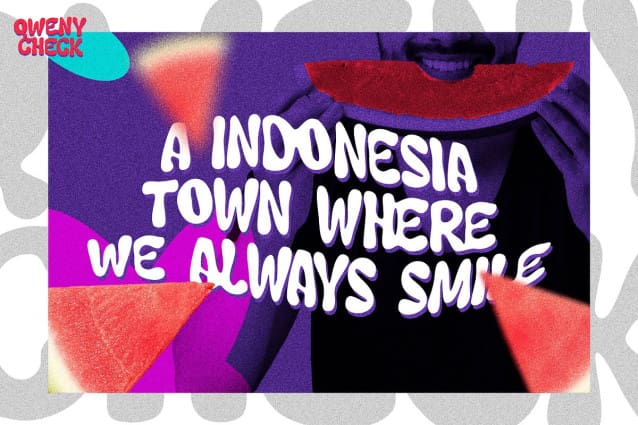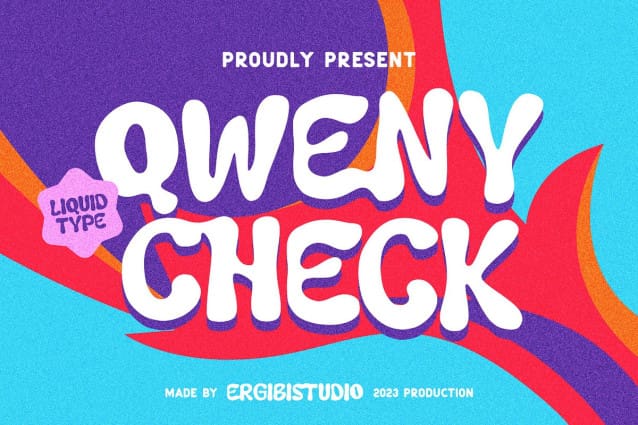
Qweny Check Font
Qweny Check Font is a font liquid shaped, with a classic modern feel mouthwatering delights. This liquid font, which was meticulously crafted, is the ideal option for your vintage products.
The many ligature in this font add a unique style making this typeface stand out from the usual display fonts, perfect for headlines, logos, posters, packaging, T-shirts, coffee shops, restaurants, magazine headers, signs or gift/post cards, cafe and wedding or any kind of advertising purposes.